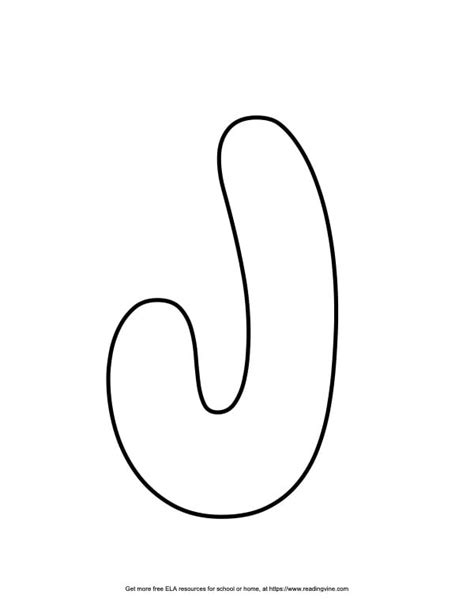
Create Bubble Letters J: Fun Fonts & Free Templates
Readers, have you ever wanted to add a touch of whimsy and playfulness to your projects? Maybe you're crafting personalized gifts, designing invitations, or simply adding a unique flair to your social media posts. Whatever the reason, bubble letters offer a delightful way to express yourself and add a touch of fun to your designs.
Creating bubble letters is a captivating journey into the world of typography. It's an art form that allows you to unleash your creativity and create unique, eye-catching designs. Whether you're a seasoned graphic designer or a curious beginner, the joy of crafting bubble letters lies in the endless possibilities they present.
I've spent countless hours exploring the world of bubble letters, analyzing the different techniques, and discovering the most effective ways to create stunning designs. In this comprehensive guide, I'll share my expertise and guide you through the fascinating realm of bubble letters, from understanding the basics to mastering advanced techniques.
What are Bubble Letters?
Bubble letters, often referred to as "balloon letters," are a playful and whimsical style of lettering that adds a touch of fun to any design. They're characterized by their rounded, inflated appearance, resembling balloons or bubbles. The letters are typically drawn with a thick outline and filled with vibrant colors, making them visually appealing and eye-catching. The playful nature of bubble letters makes them perfect for adding a touch of whimsy to projects, from birthday cards and invitations to social media posts and even branding elements.
The origins of bubble letters can be traced back to the early 20th century, where they were commonly used in cartoons and children's books. They have since become a beloved and versatile letter style, finding their way into various artistic expressions.
Bubble letters are not just about their whimsical appearance; they also hold a unique appeal for creative expression. The rounded shapes and playful curves offer a canvas for artistic exploration, allowing designers to experiment with different colors, textures, and patterns. This versatility makes bubble letters a popular choice for artists, graphic designers, and individuals seeking to add a personal touch to their projects.
Why Choose Bubble Letters?
There are more than just a few reasons to choose bubble letters for your projects. Here are some of the key benefits of this fun and versatile lettering style:
- Visual Appeal: Bubble letters have a unique and captivating visual appeal that instantly grabs attention. Their rounded shapes and playful curves create a sense of joy and excitement.
- Versatility: Bubble letters are incredibly versatile. They work well for a wide range of projects, from personal invitations and birthday cards to branding elements and social media graphics.
- Personalization: Bubble letters are a perfect way to add a personal touch to any project. You can customize their look by experimenting with different colors, patterns, and embellishments.
- Accessibility: Bubble letters are relatively easy to create, even for beginners. There are numerous resources available, including free templates and online tools, to help you get started.
- Creativity: Bubble letters encourage creativity. They provide a canvas for experimenting with different styles, techniques, and design elements.
Free Template Options
One of the easiest ways to create bubble letters is by using free templates. These templates provide pre-designed outlines for each letter, allowing you to focus on adding your own personal touch. You can find a wide variety of free bubble letter templates online. Some popular websites offer printable templates, allowing you to create your designs by hand. Others provide digital templates that you can edit and customize using graphic design software.
When choosing a free template, consider the following factors:
- Letter Style: Choose a template that aligns with the style you want to achieve. Some templates offer traditional bubble letter designs, while others offer more modern or stylized versions.
- Size and Scale: Ensure the template is the right size for your project. Consider the intended use and the overall design.
- Compatibility: Ensure the chosen template is compatible with the software or printing method you plan to use. Some templates are designed for printing, while others are for digital editing.
Fun Fonts
Another way to create bubble letters is to use fun fonts that are specifically designed for a bubble letter style. These fonts offer a variety of styles, from classic rounded letters to more modern and playful designs. Many online font databases offer free and paid bubble letter fonts. These fonts are easy to use and can be incorporated into any design software or online tool.